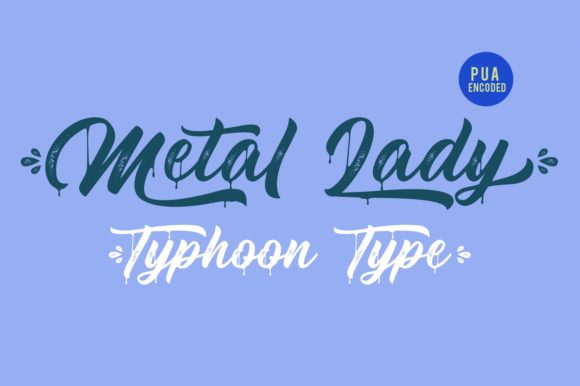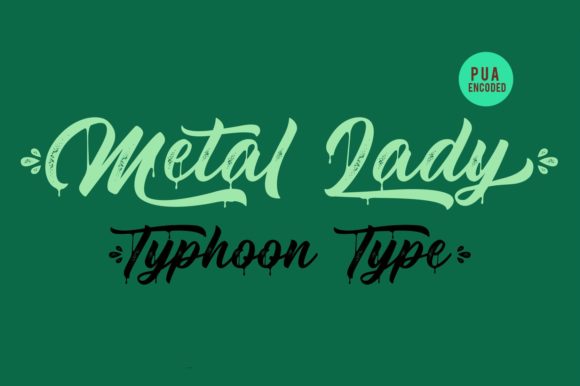
Introduction to Metal Lady Font
Metal Lady is a cursive and brushed handwritten font.
This gentle font will look gorgeous on a variety of design ideas Metal Lady is PUA encoded which means you can access all of the glyphs and swashes with ease.